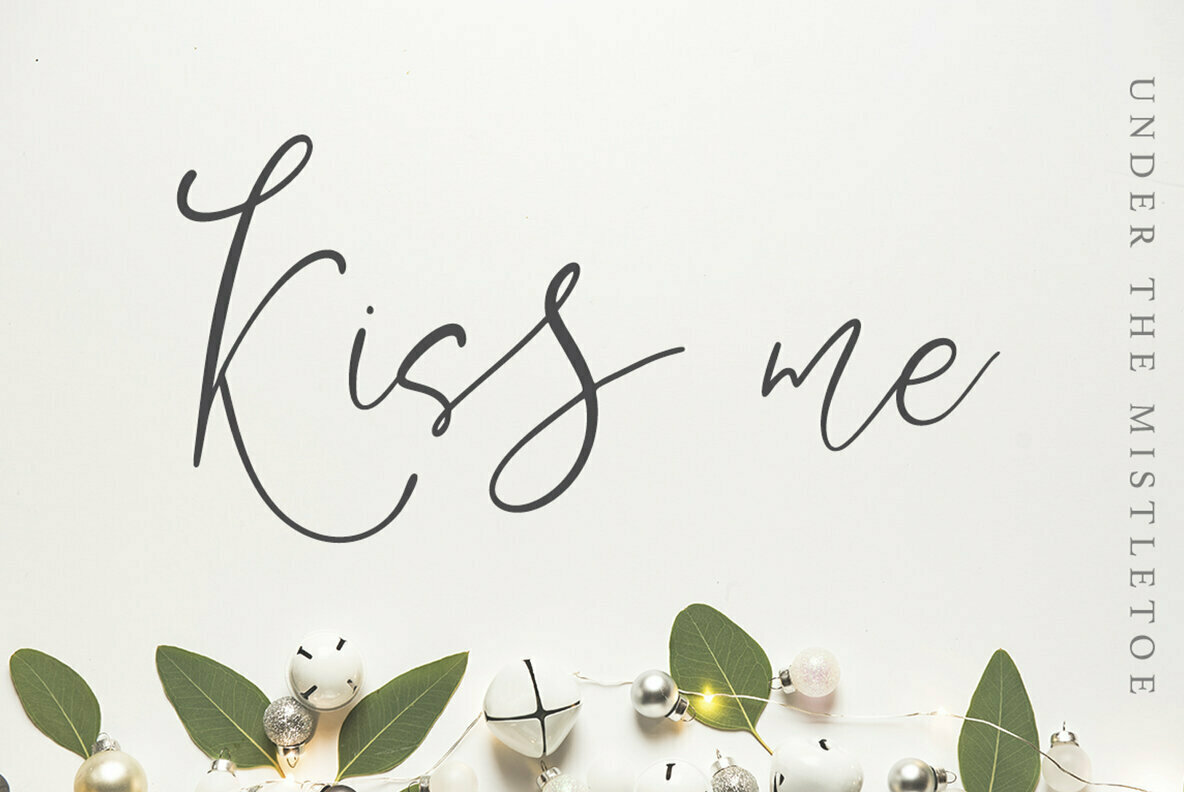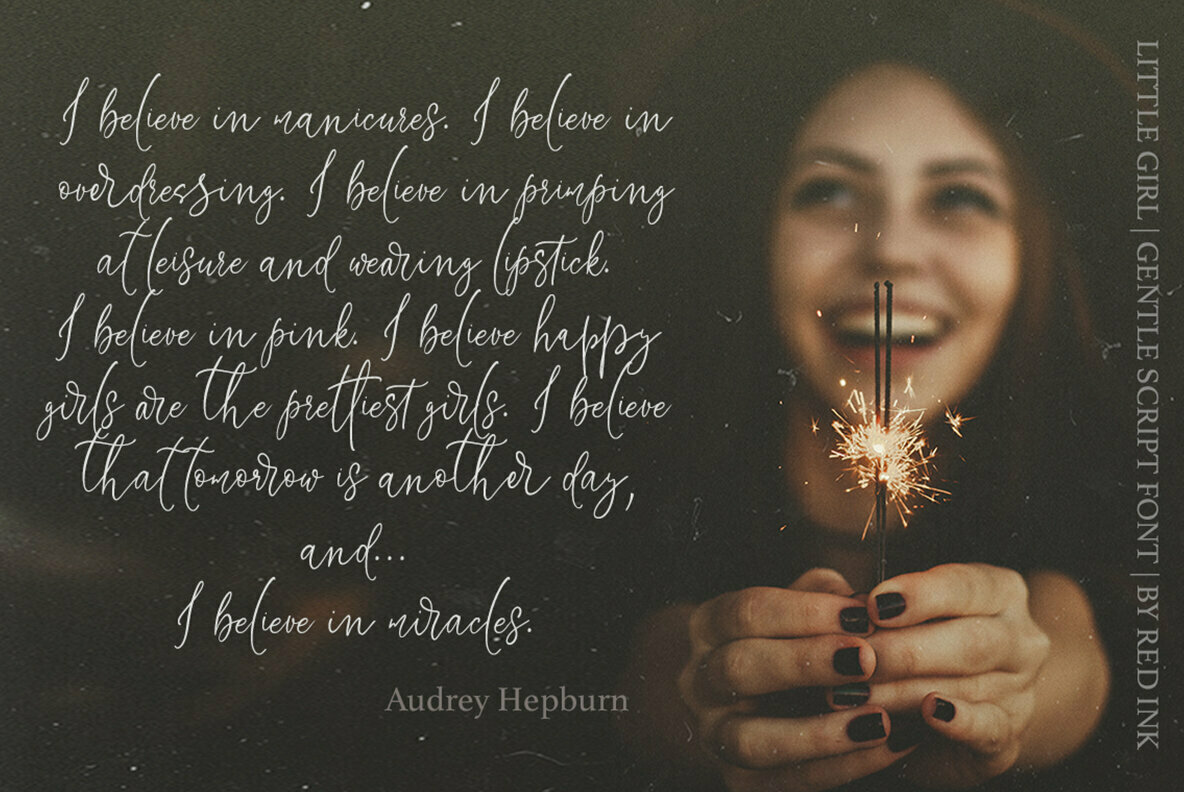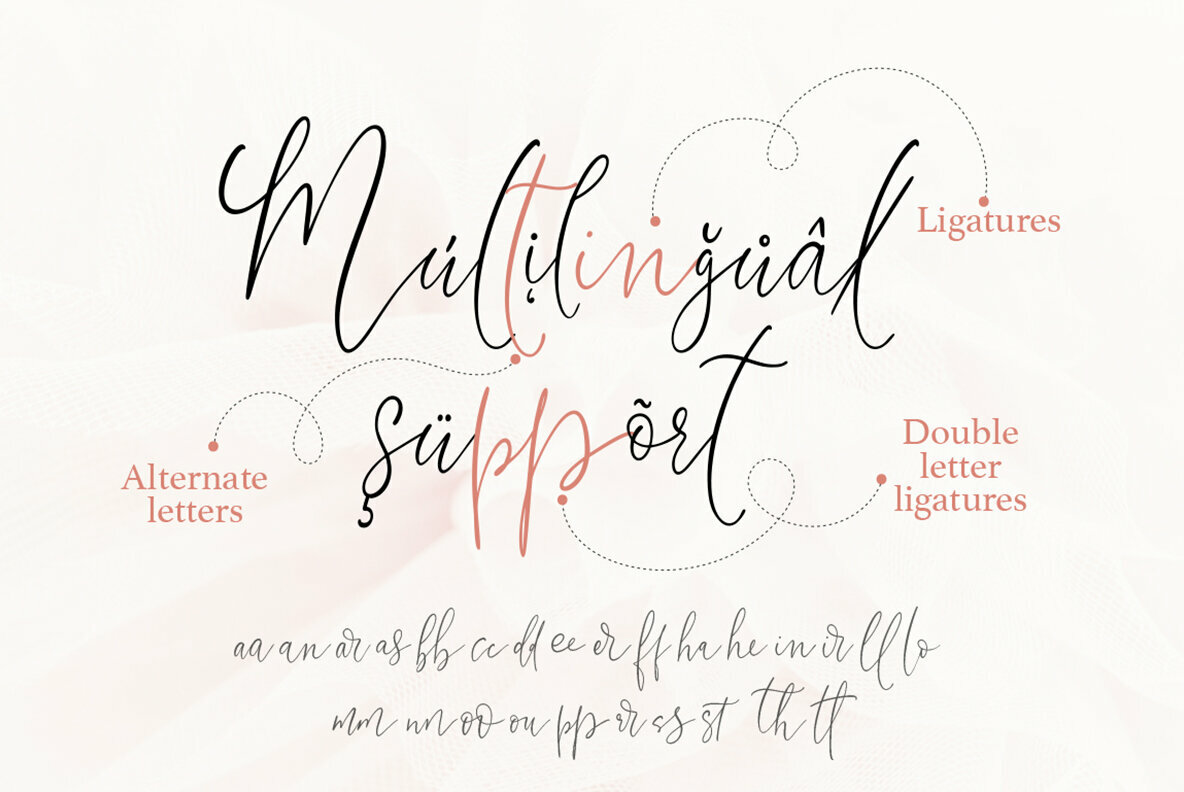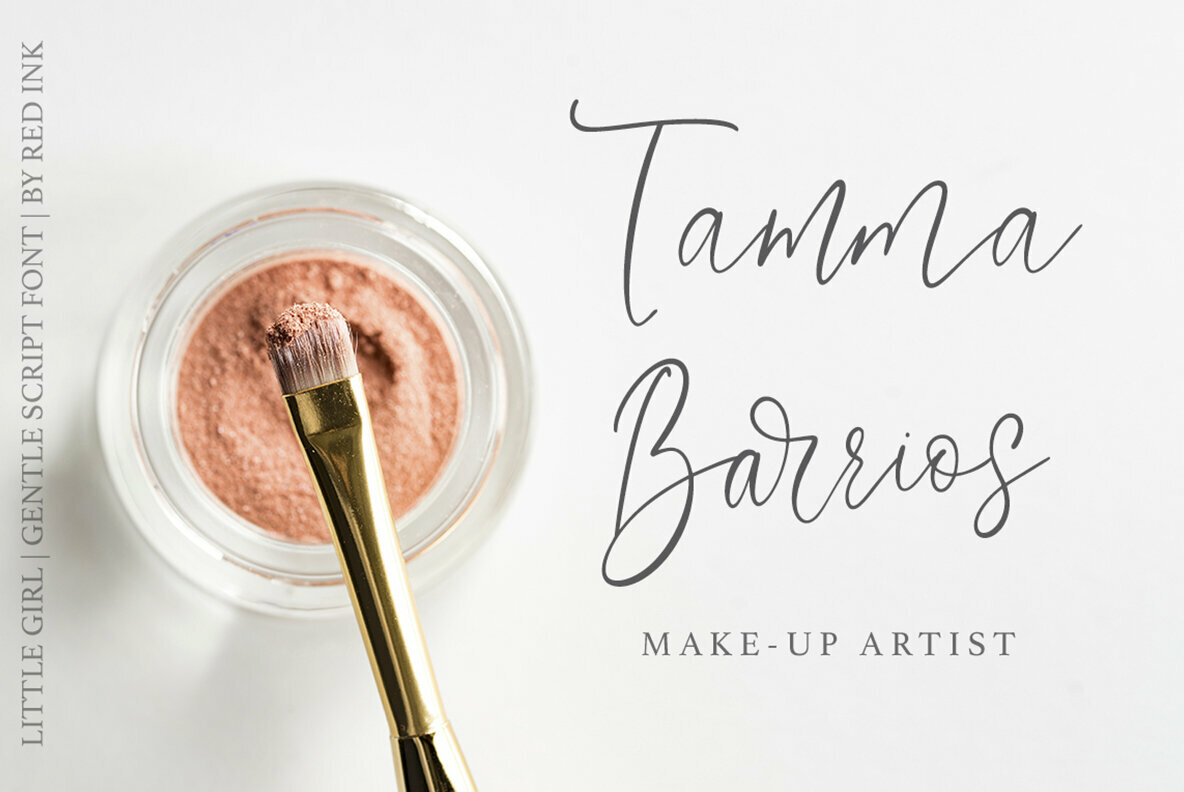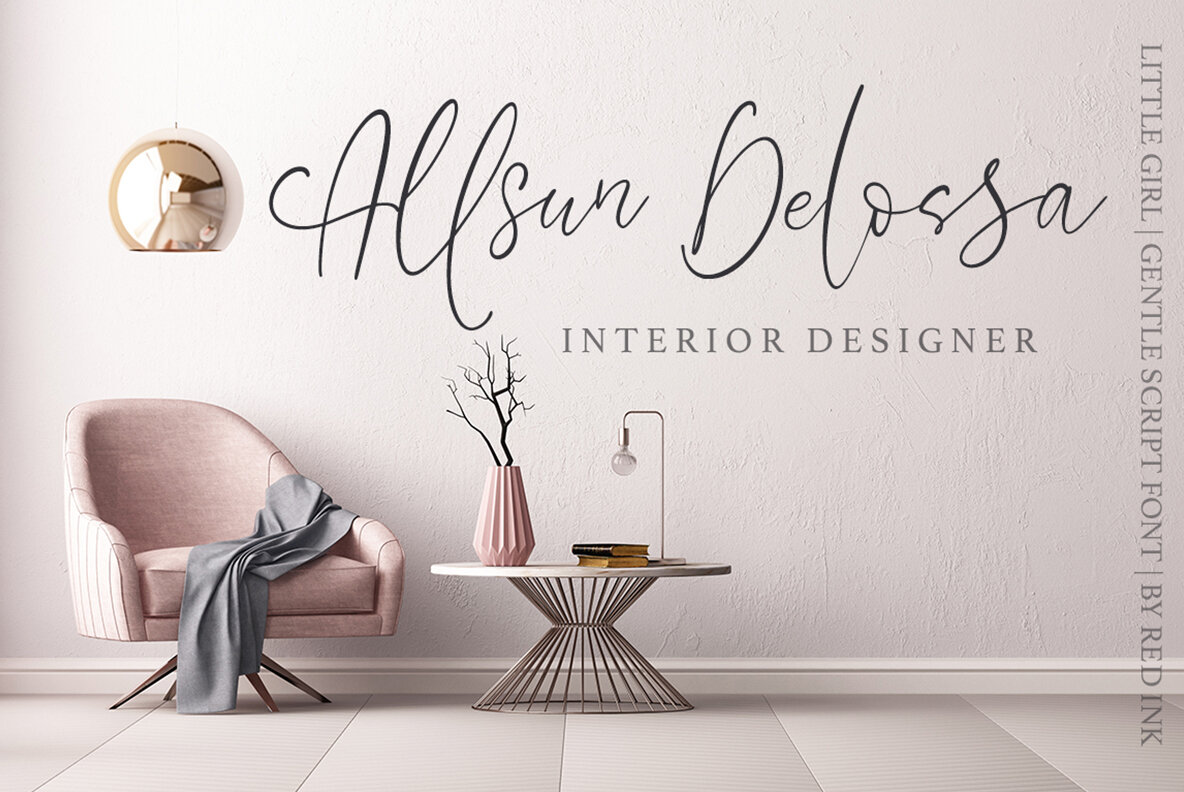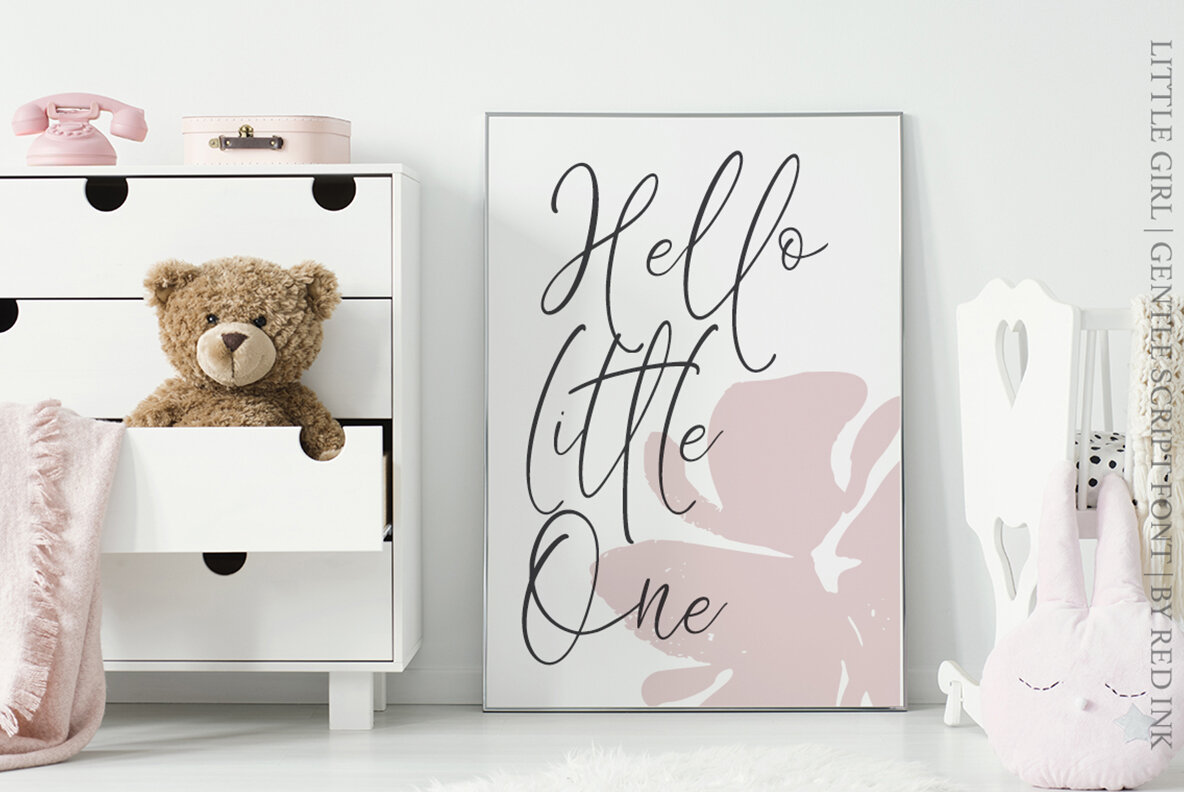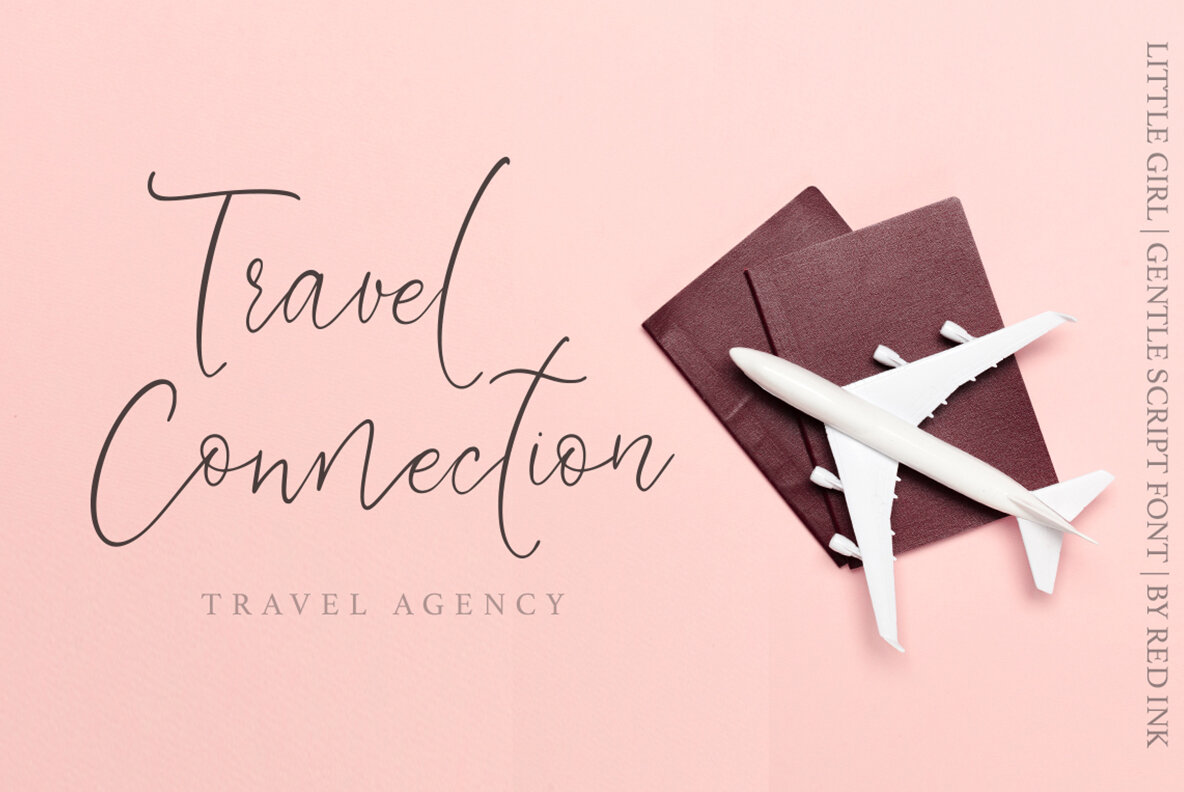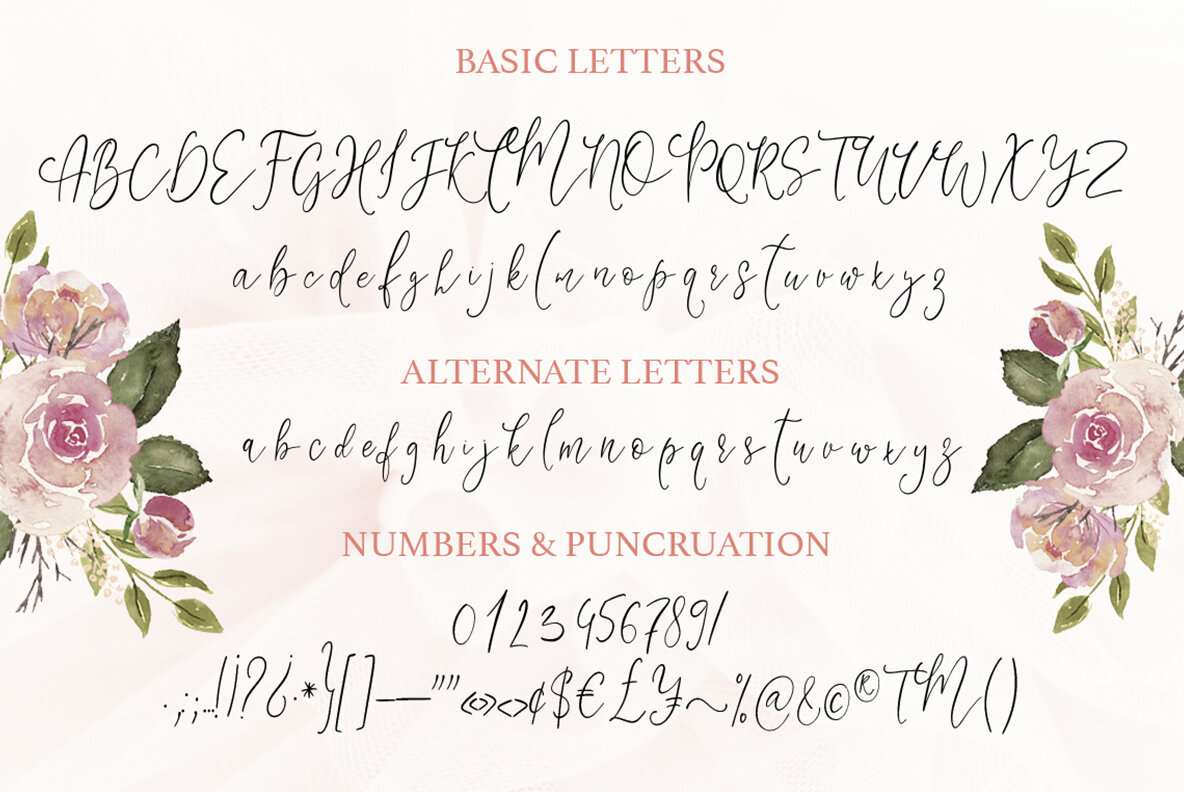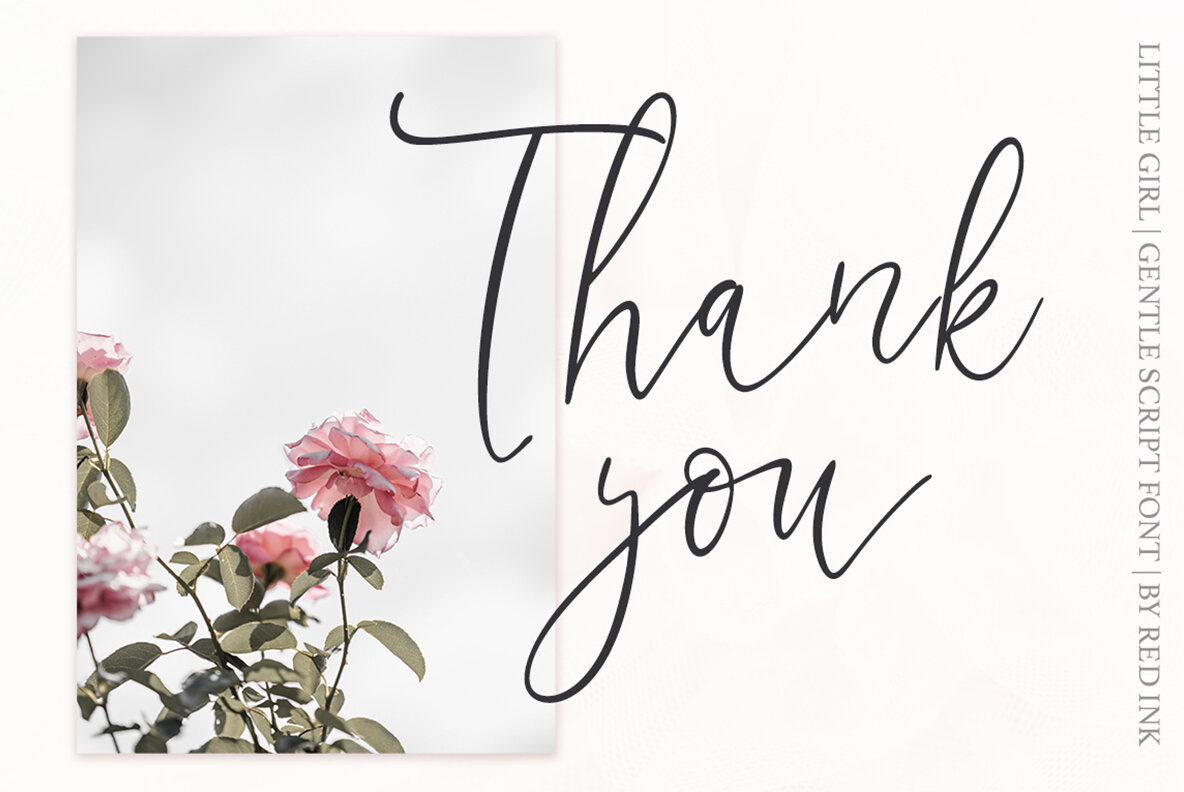
Little Girl Font
Little Girl Regular
Little Girl is a beautiful script SIGNATURE font with an unique bouncy
is perfect for blogging, social media, branding, wedding invites and cards.
Little Girl includes full set of gorgeous uppercase and lowercase letters, numerals, a large range of punctuation, lowercase alternate letters, 26 ligatures. It’s all giving realistic hand-lettered style.